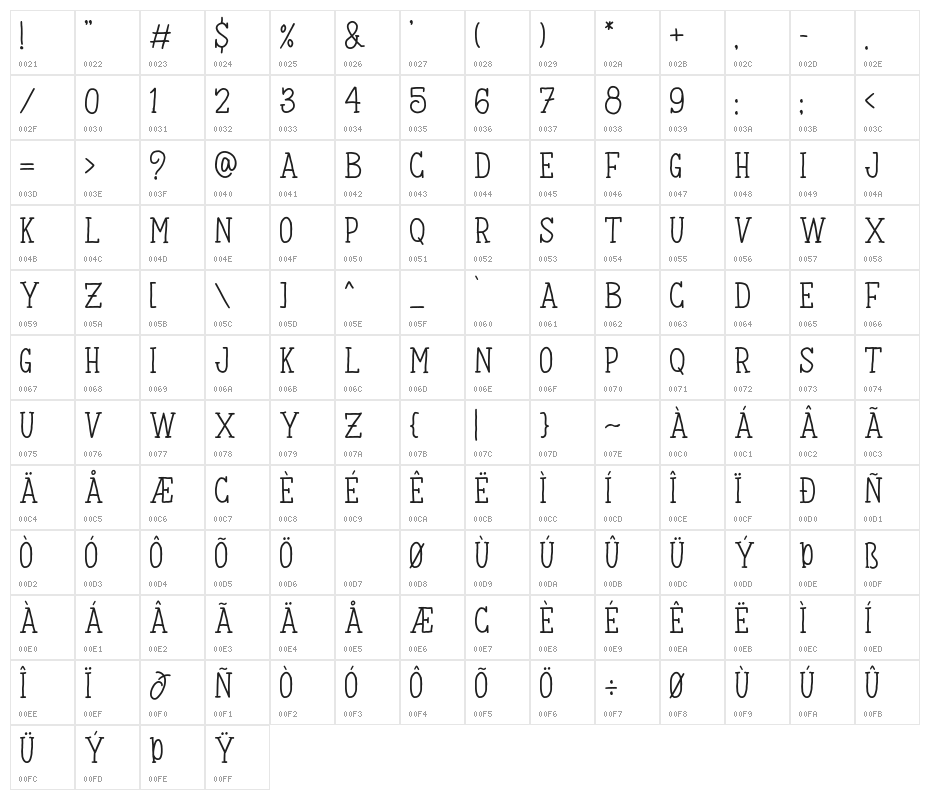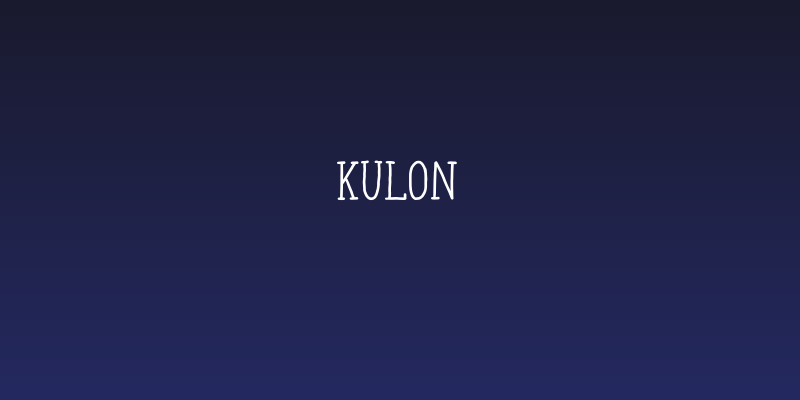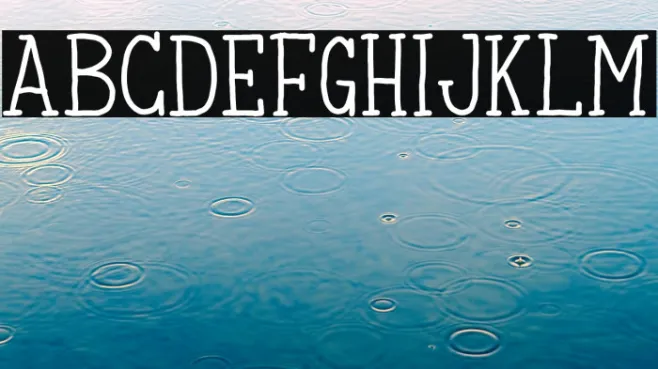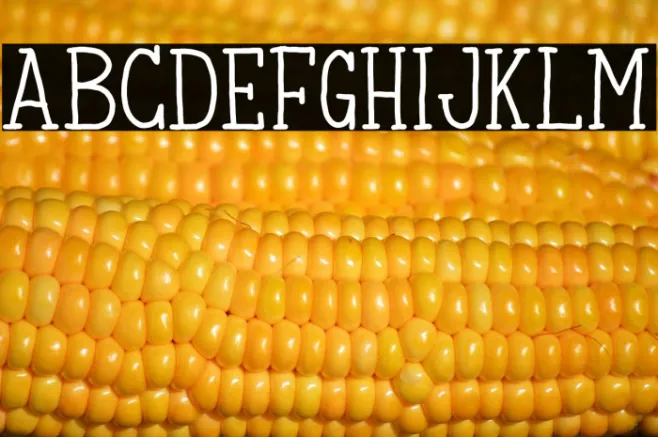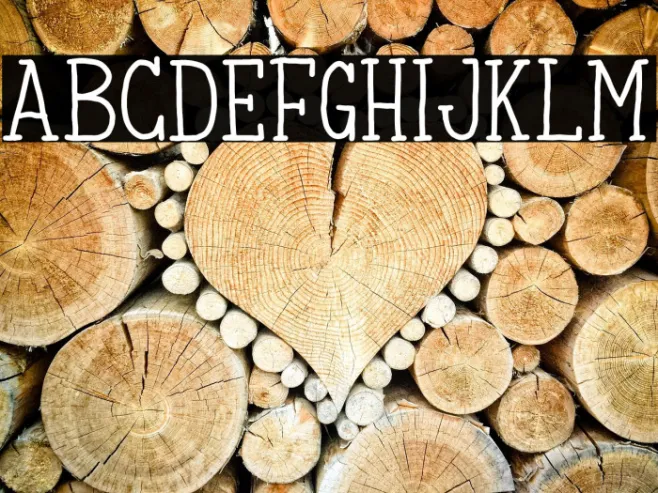
Kulon Font
Kulon Description
This font features a playful and slightly irregular design, characterized by its hand-drawn appearance. The letters have a whimsical quality, with varying stroke widths that add a sense of movement and energy. The uppercase and lowercase letters maintain a consistent style, with rounded edges and a slightly uneven baseline that enhances its casual and approachable feel. The numerals and special characters follow the same aesthetic, making it a cohesive choice for projects that require a friendly and informal touch.
| Proposed Projects | Ideal for children's books, greeting cards, playful branding, and creative posters. |